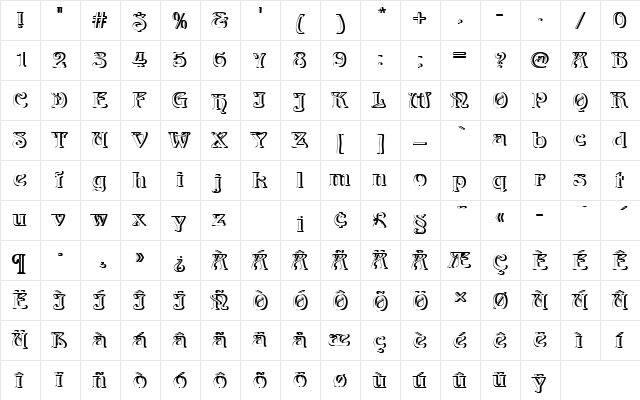
ArnoldBoeDRe1 Regular
Design Context for ArnoldBoeDRe1 Typeface
ArnoldBoeDRe1 is a composed and adaptable typeface that performs quietly and consistently across a wide range of design contexts.